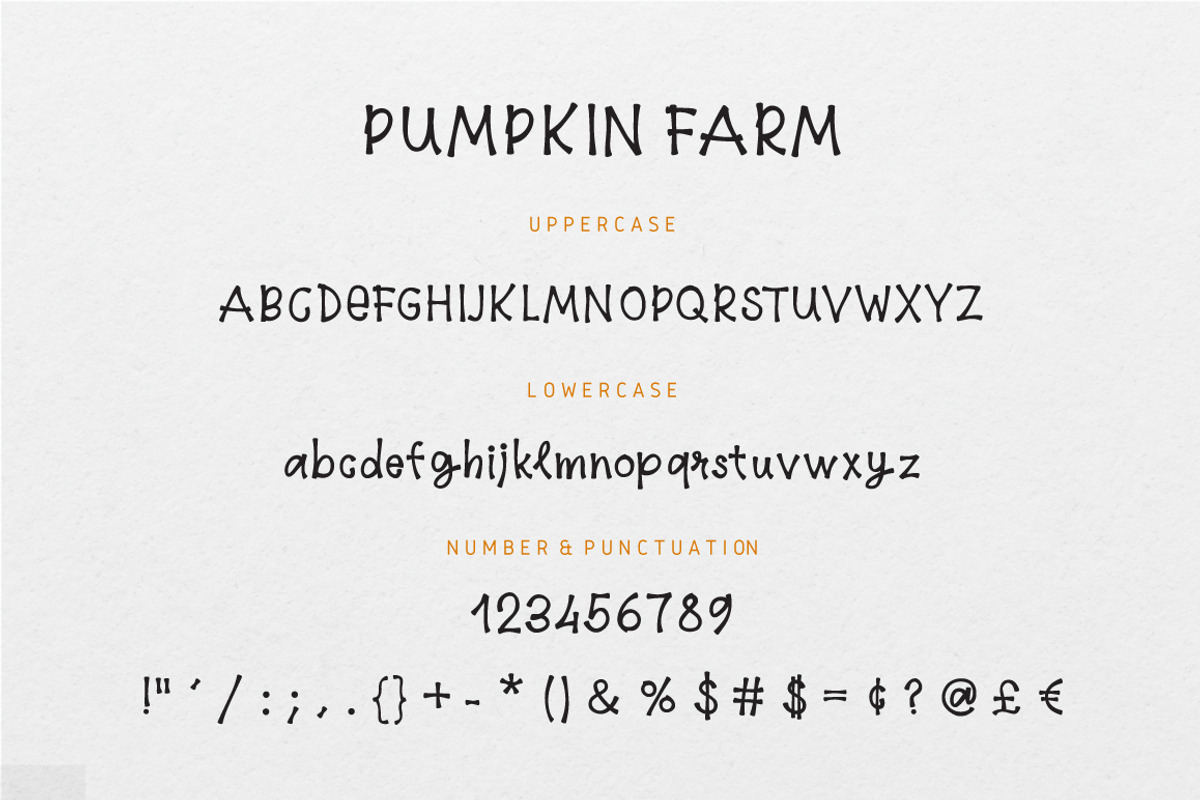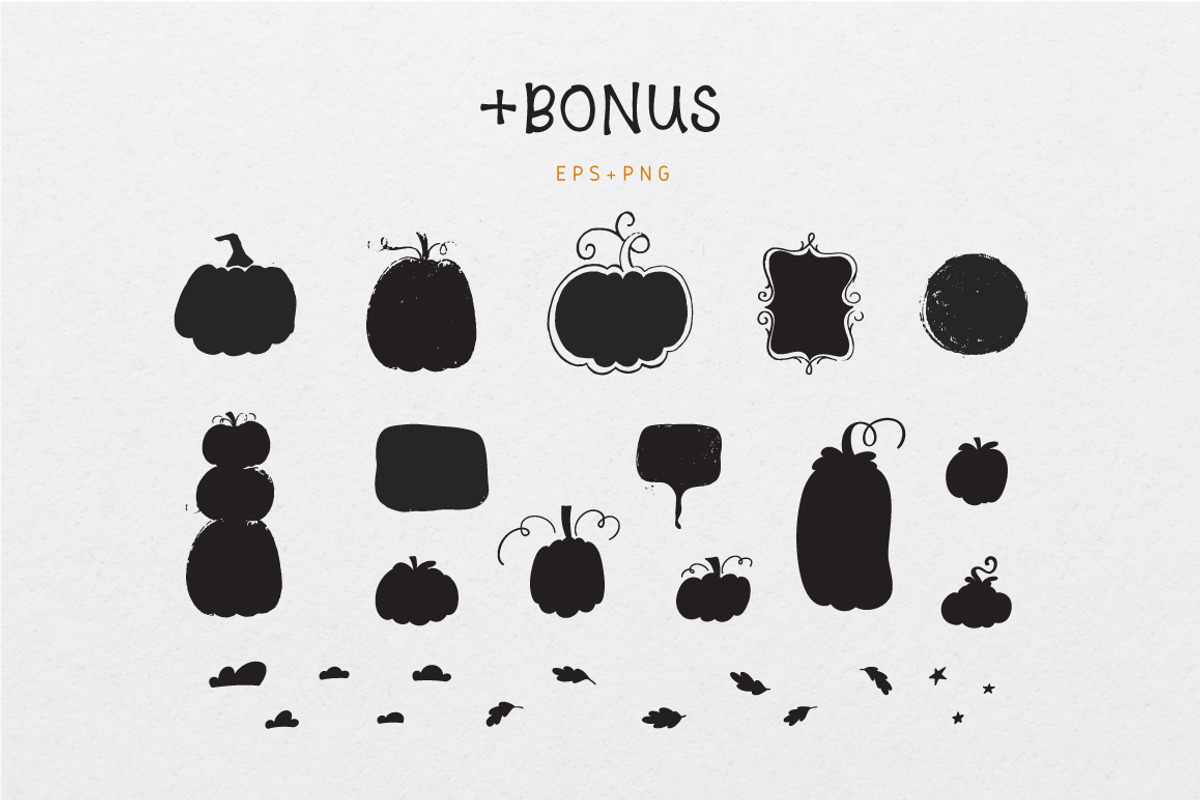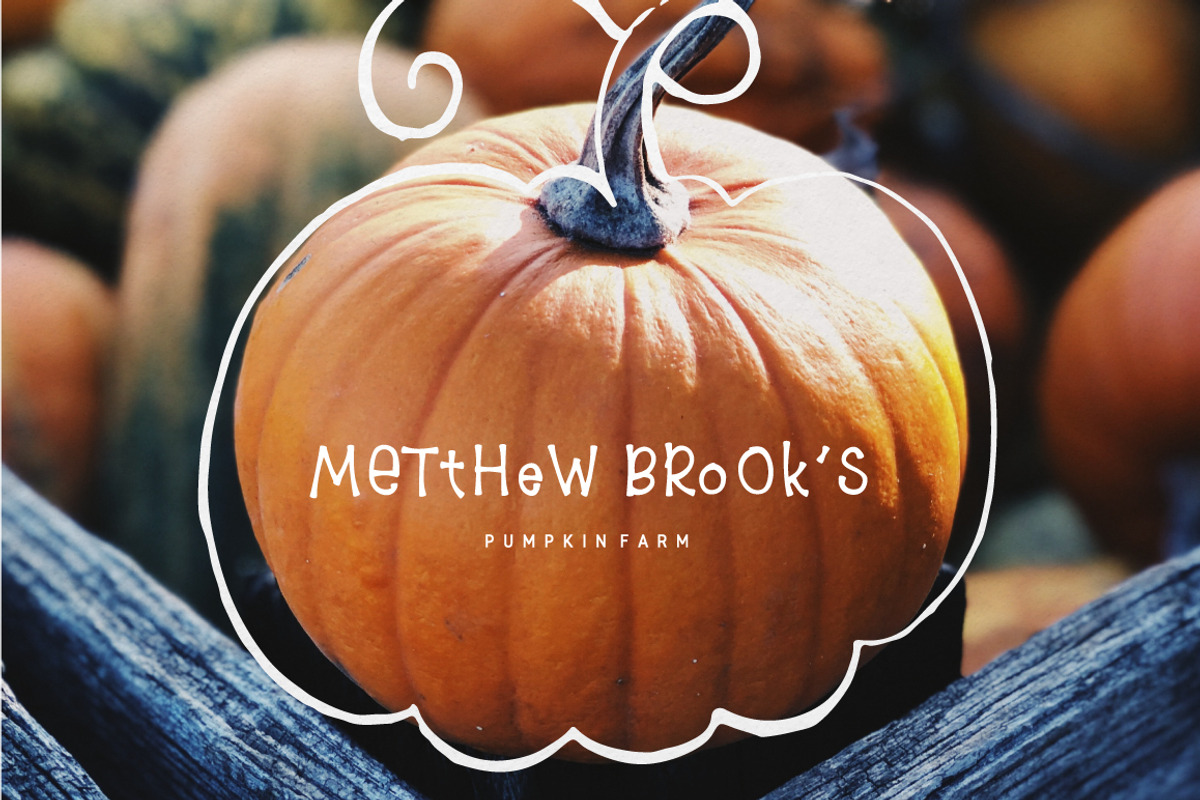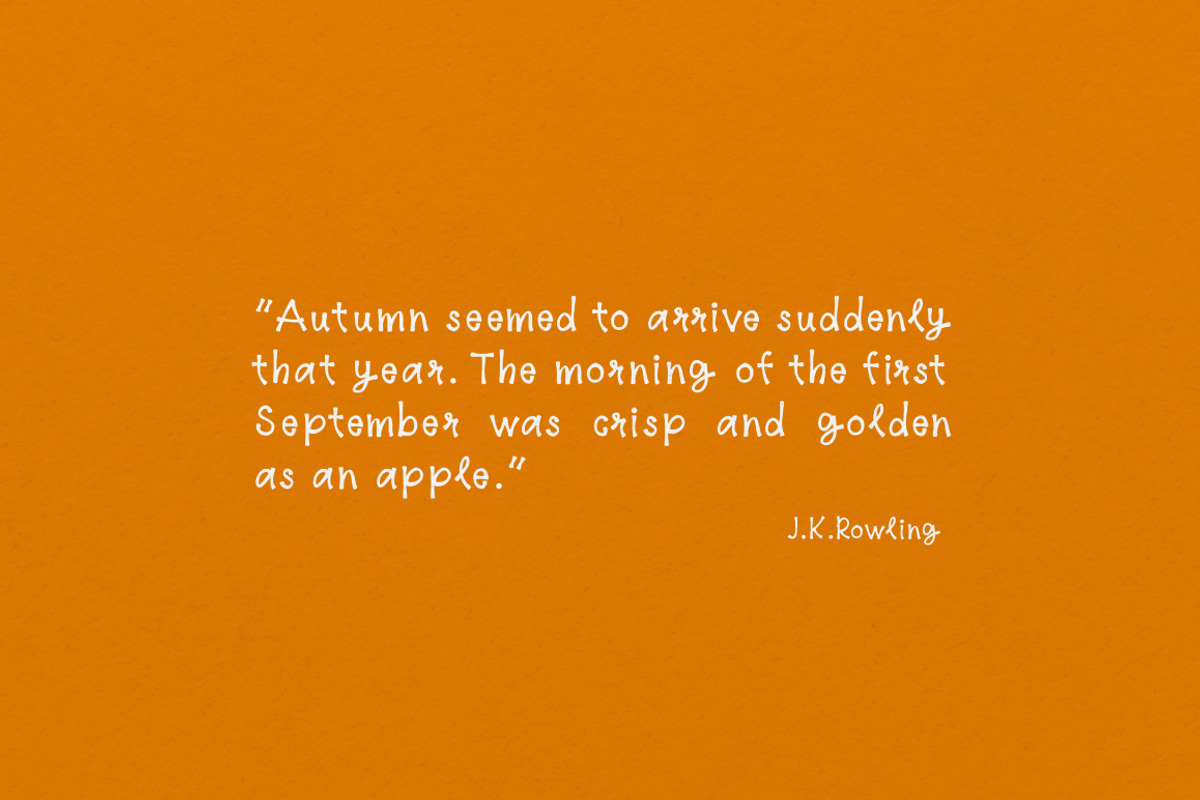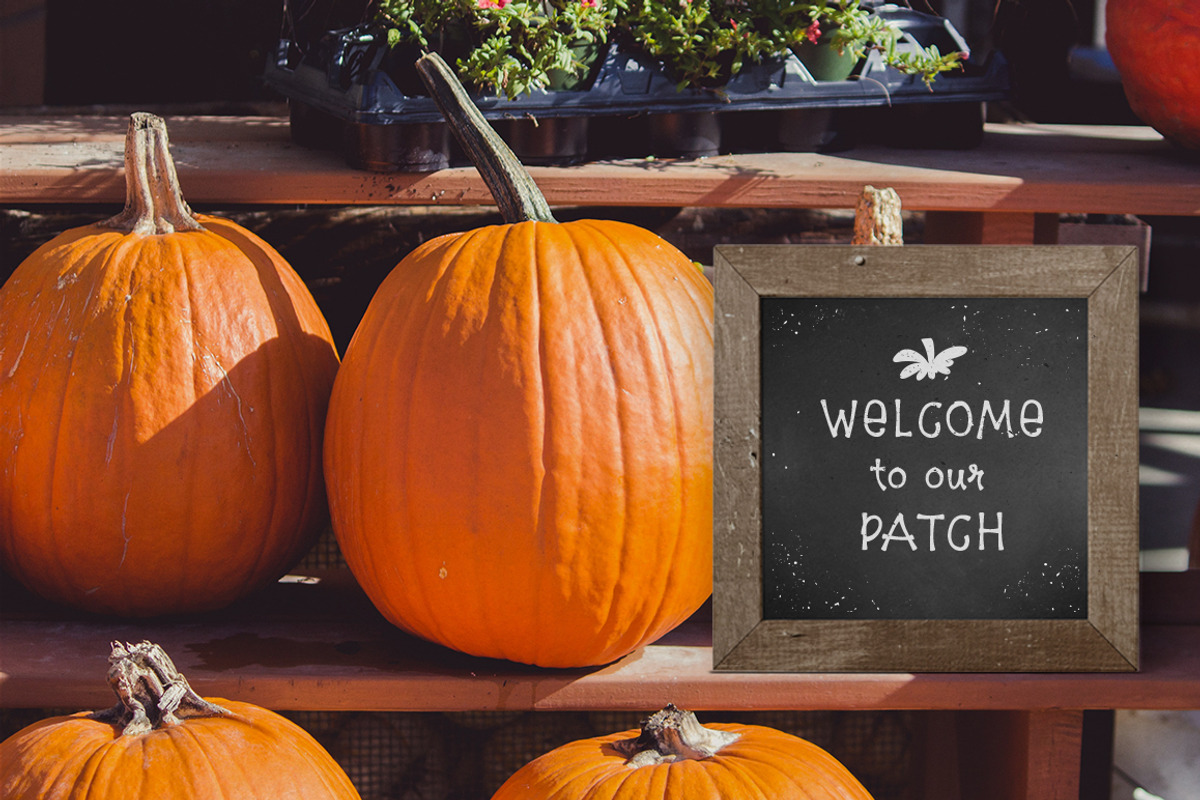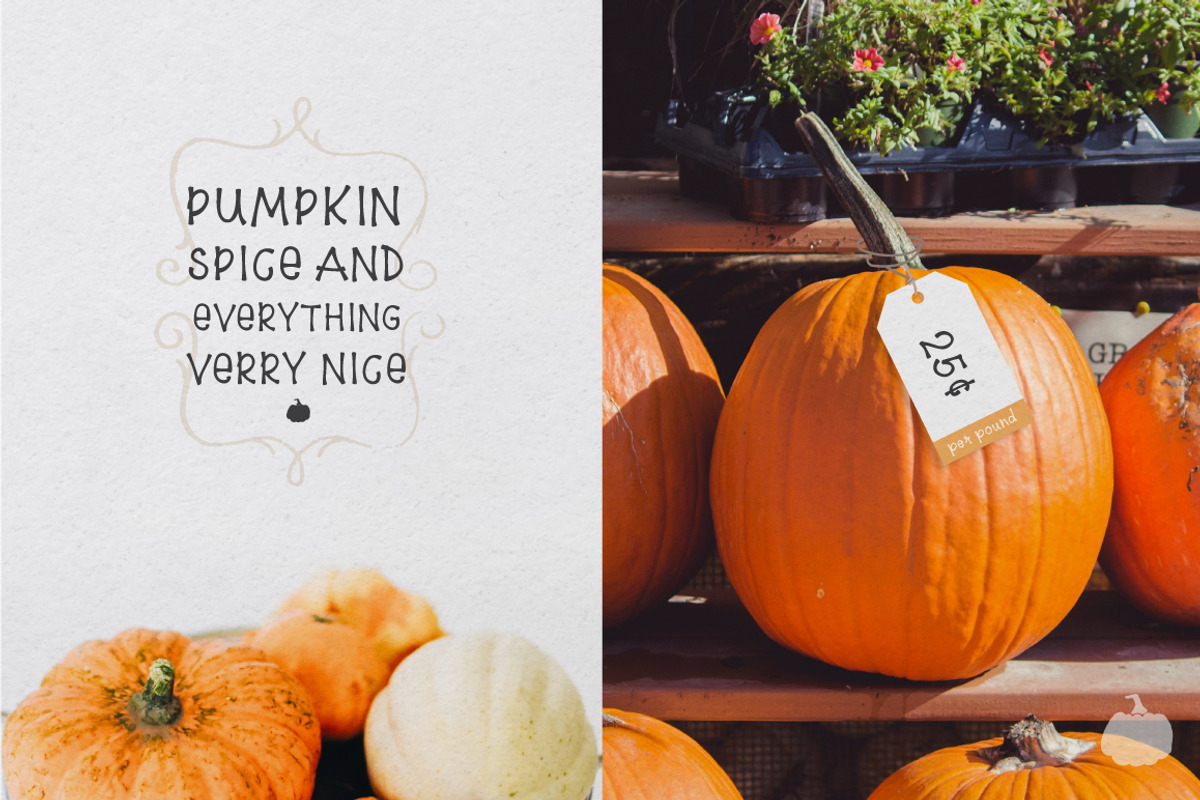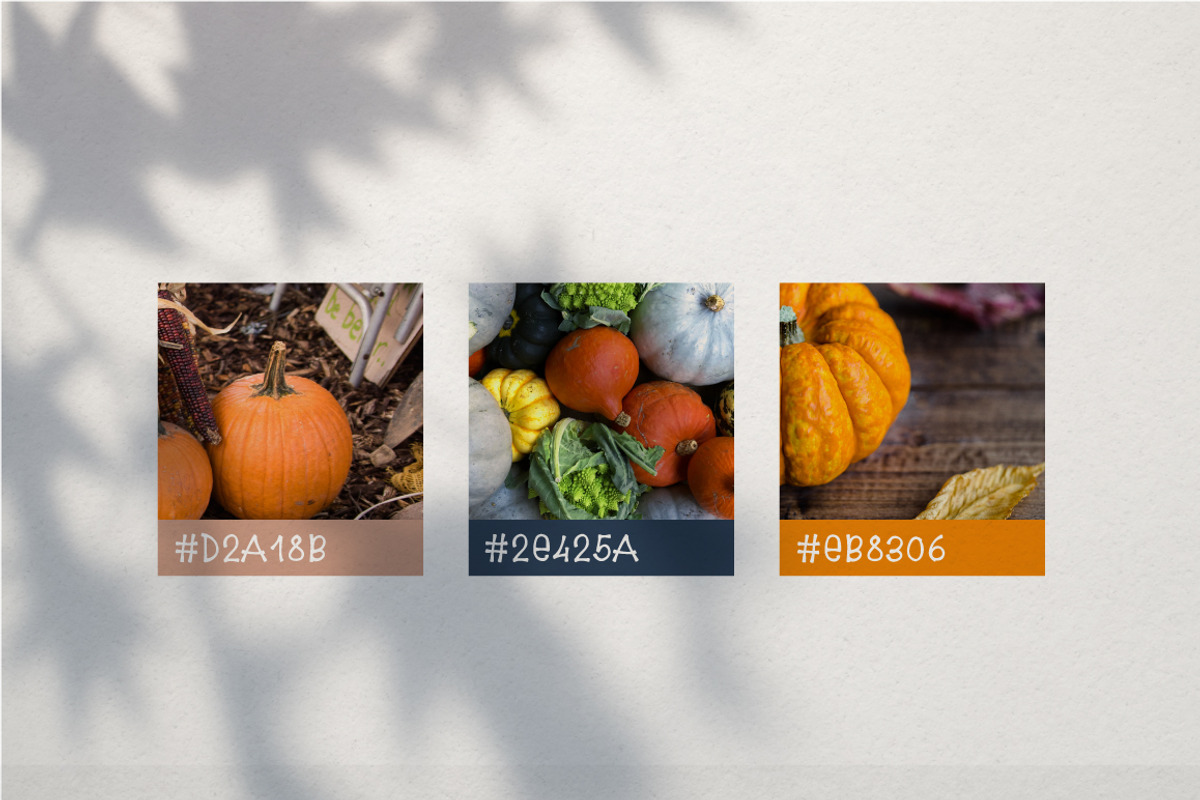
5$ Pumpkin Farm Font
Introducing Pumpkin Farm font!
This Sans serif font was created specifically for farm industry and would look great on branding identity card and product, business cards, logos, posters. That doesn't mean that you can't use for others, like mugs, packaging, photos and etc.
All elements are 100 % draw with love.